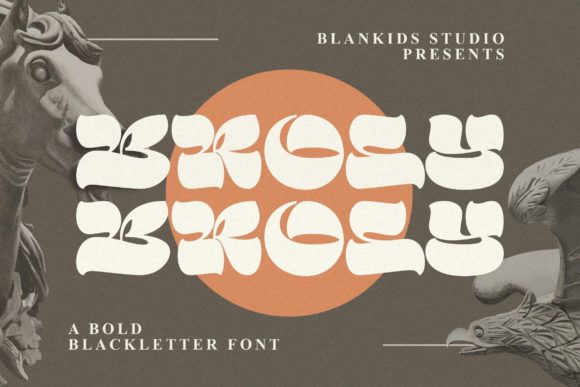
Behold, the Broly Font – a wild and untamed lettering that embodies the boldness of Blackletter calligraphy! This display font is the brainchild of Blankids Studio, renowned for their audacious designs. If you seek a typeface that's anything but ordinary, look no further than Broly.
Immerse yourself in the world of tattoos and discover a font that's as expressive and captivating as the art itself. Broly's sharp angles and dynamic strokes command attention, transforming names and phrases into striking visual statements. Its distinct character adds an edgy touch to logos, posters, and album covers, leaving an unforgettable impression on all who encounter it.
Journey into the realm of children's books and comics, where Broly's playful nature shines through. Its bold lines and energetic curves ignite imagination, creating a world where adventure and wonder come alive. This font breathes life into characters and settings, inviting readers to embark on thrilling escapades.
Broly's versatility extends to the realm of packaging and merchandise, adding a touch of uniqueness to your products. Whether it's fashion apparel, homeware, or limited-edition collectibles, this font amplifies your brand's identity, making it stand out from the crowd. Its bold presence demands attention, captivating customers and leaving a lasting impact.
But Broly's allure doesn't stop there. Its striking presence elevates book covers and logotypes, giving them a distinct personality that's sure to captivate and inspire. Whether you're an author seeking to make a statement or a business owner looking to leave a mark, Broly is the perfect choice to convey your message with impact.